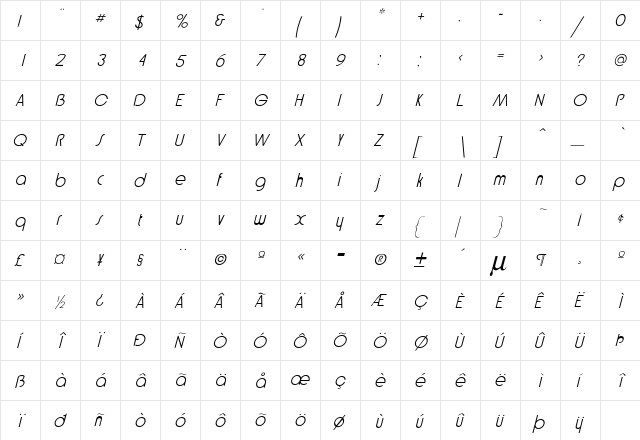
Bethel Italic
Design Context for Bethel Typeface
Bethel takes a measured approach to typography — its balanced proportions and neutral character make it a reliable workhorse for both digital and print work. The dynamic lean of this cut emphasises speed and emphasis in any layout.
Pro Tip: Use Bethel for emphasis, pull quotes, and subheadings where its slanted energy can add rhythm to the layout.